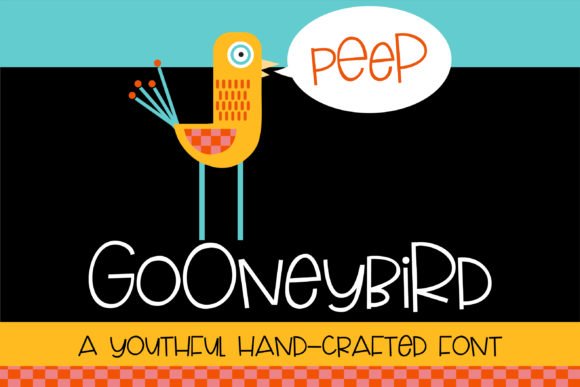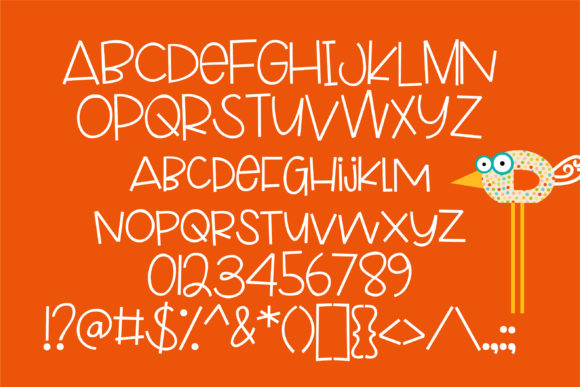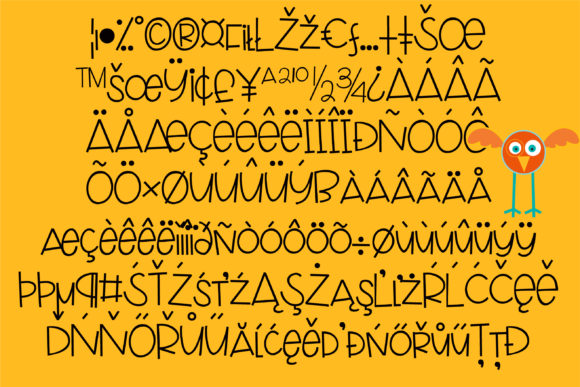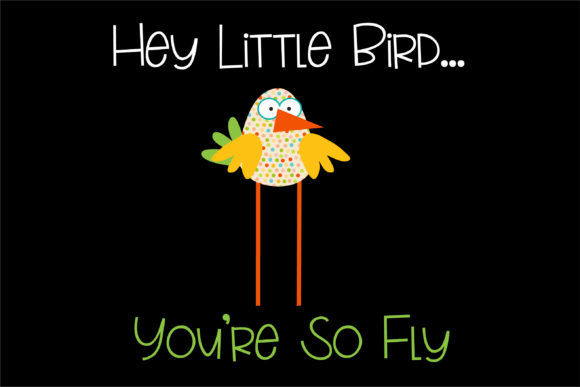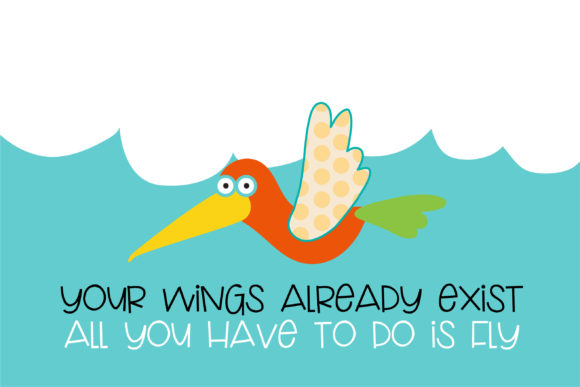
The Perfect Blend of Humor and Style: Introducing Gooneybird Font
Who hasn’t found themselves stuck in a creative rut, staring blankly at a blank page or screen, wondering where to start? The blank page stare – a rite of passage for many designers. But what if I told you there’s a font that can break the ice, add a dash of humor, and make your design project stand out from the crowd?
Enter Gooneybird Font, a playful sans serif font that’s equal parts charming and quirky. Its whimsical twist makes it the perfect companion for designers looking to add a bold, carefree charm to their work. Whether you’re crafting a social media campaign, designing a logo, or creating a fun infographic, Gooneybird Font is the perfect tool to inject some personality into your project.
- Unique Characteristics: The Gooneybird Font features a playful, whimsical design with a mix of uppercase and lowercase letters, and a unique, hand-drawn feel.
Designer Review: Gooneybird Font
As a designer, I’m always on the lookout for unique and interesting fonts to add some flair to my projects. Gooneybird Font caught my eye with its quirky, handwritten feel, and I was excited to dive in and see what it has to offer.
- Expressive and playful personality: Gooneybird Font has a fun, carefree vibe that’s perfect for projects that need a little extra whimsy.
- High-quality rendering: The font renders beautifully on screen and in print, with crisp lines and smooth curves.
- Good legibility: Despite its handwritten feel, Gooneybird Font is surprisingly easy to read, even at smaller font sizes.
- Limited versatility: Gooneybird Font is best suited for projects that need a quirky, handwritten feel, and may not be the best choice for more formal or professional projects.
- May not be suitable for small text: While Gooneybird Font is generally legible, it may become difficult to read when used in very small text sizes.
Overall, I think Gooneybird Font is a fun and unique addition to any designer’s toolkit. While it may not be the best choice for every project, it’s a great option for those looking to add a little extra personality to their work.
Tips for Getting the Most Out of Gooneybird Font
To get the most out of the Gooneybird Font, try combining it with bold or italic styles for added emphasis.
Use the font in conjunction with bright, bold colors to create a playful and eye-catching design.
Experiment with different font sizes and styles to create visual interest and hierarchy in your design.
The Gooneybird Font is ideal for:
Children’s book covers and illustrations
Playful website designs and landing pages
Fun and creative social media graphics